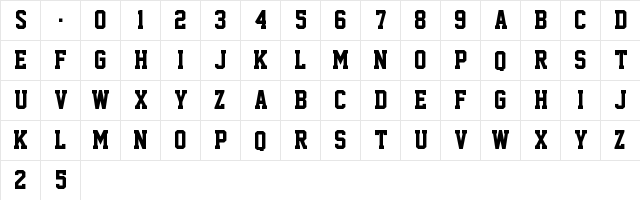
Superstar M54 Regular
Design Context for Superstar M54 Typeface
Superstar M54 is a composed and adaptable typeface that performs quietly and consistently across a wide range of design contexts.